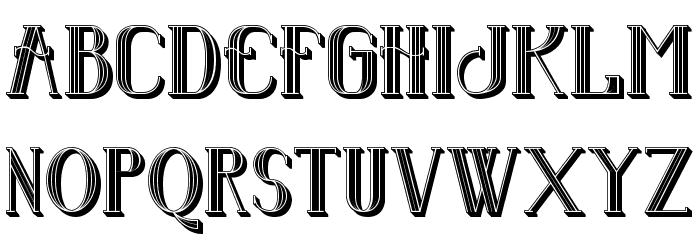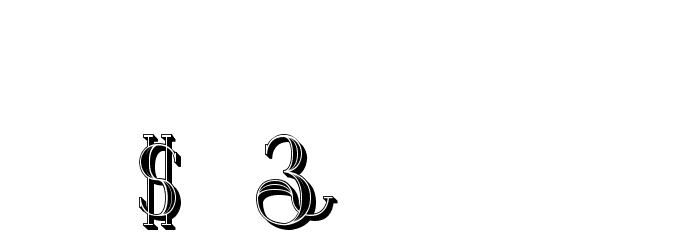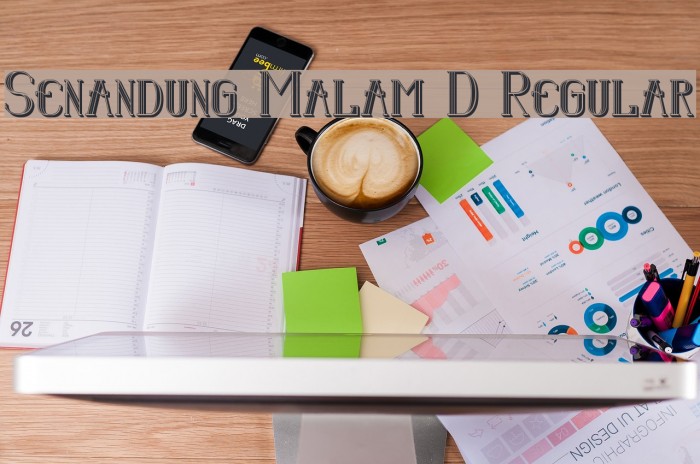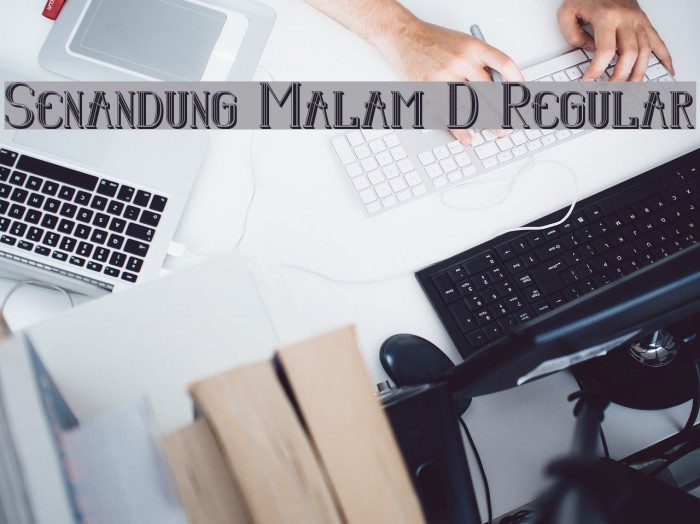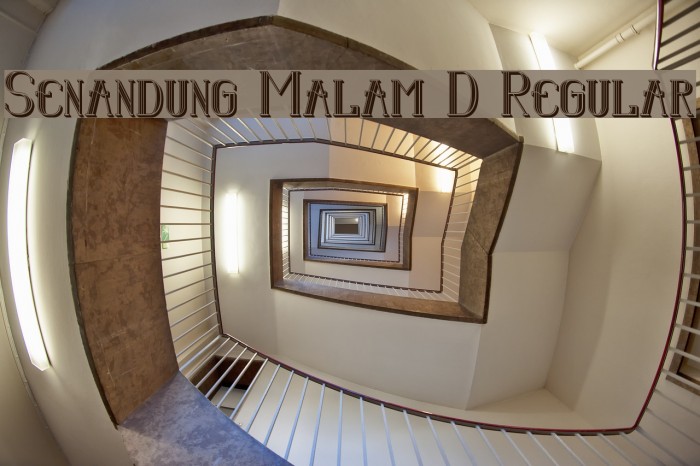
Senandung Malam 3D Regular Font
This font features a bold, decorative style with a 3D effect that gives each character a sense of depth and dimension. The uppercase letters are designed with intricate line work, creating a layered appearance that is both striking and sophisticated. The font maintains a consistent weight throughout, with each letter exhibiting a unique blend of classic and modern elements. The characters are evenly spaced, ensuring readability while maintaining the decorative appeal. This font is ideal for projects that require a touch of elegance and flair, making it suitable for headlines, posters, and branding materials.
A bold, decorative font with a 3D effect and intricate line work.
- Proposed Projects: Ideal for headlines, posters, branding materials, and any design needing a touch of elegance.